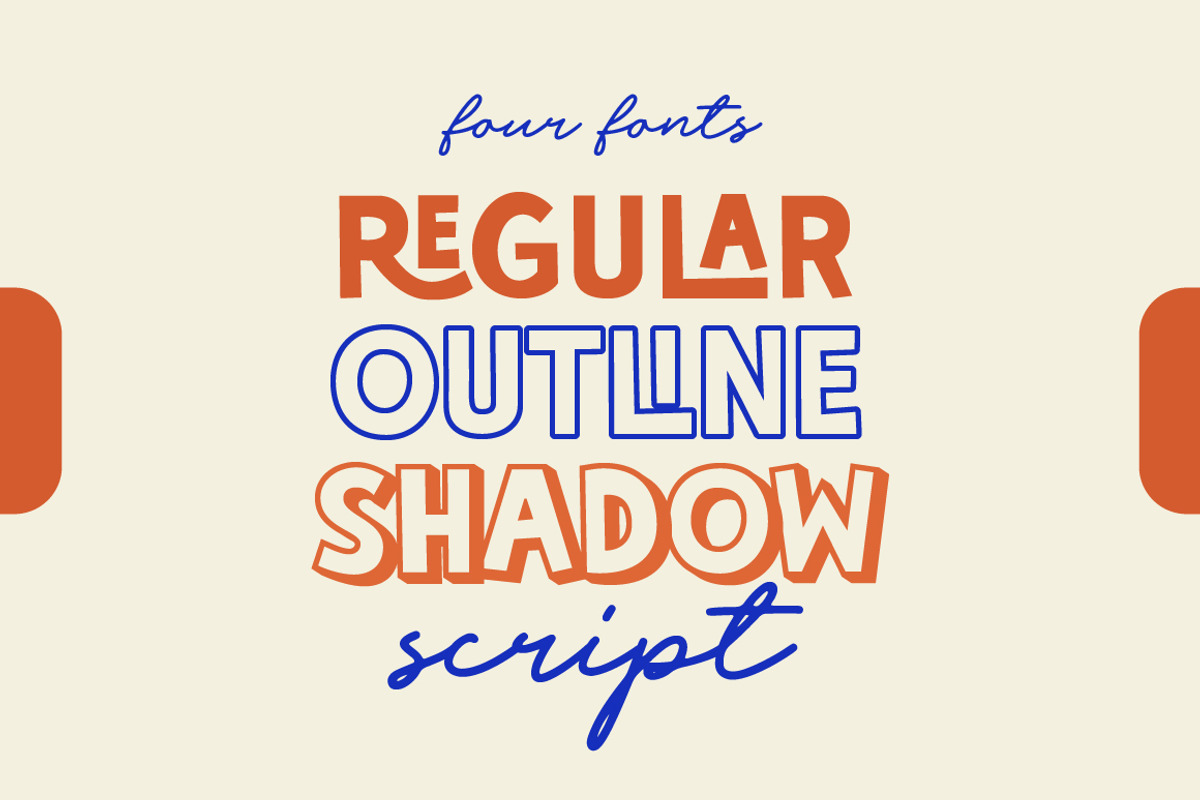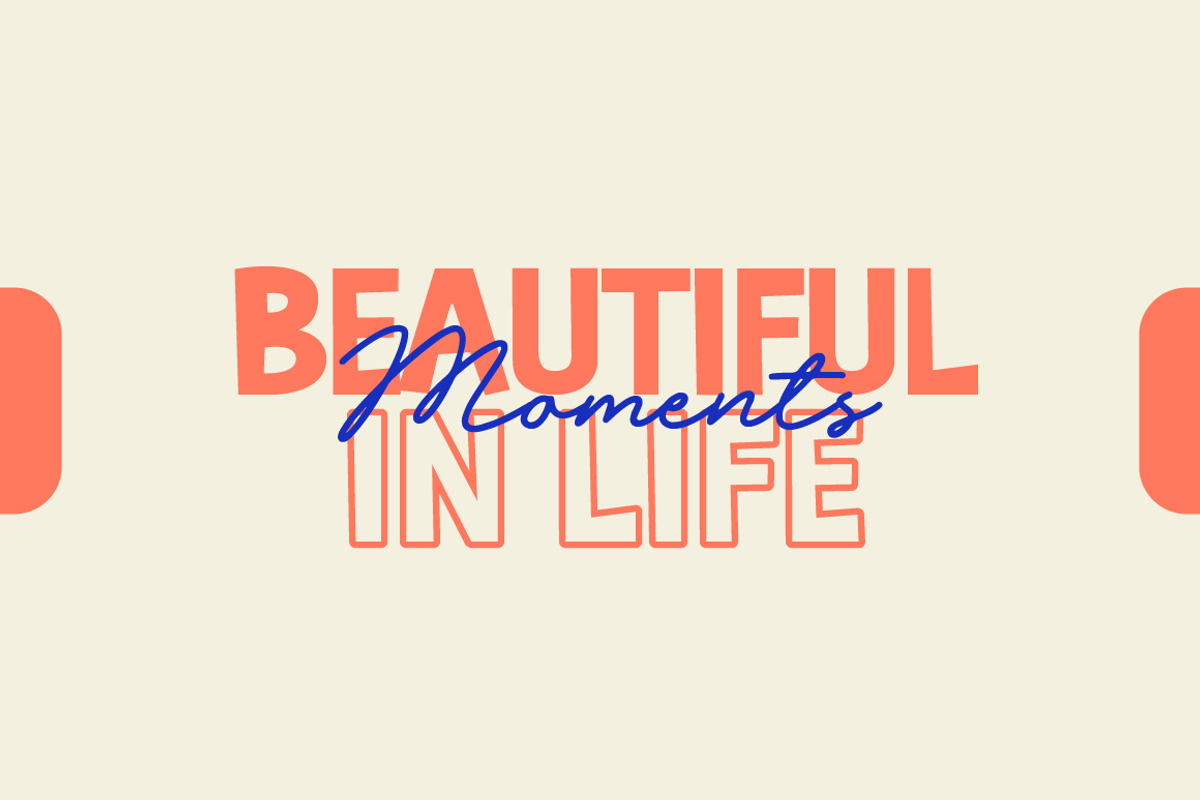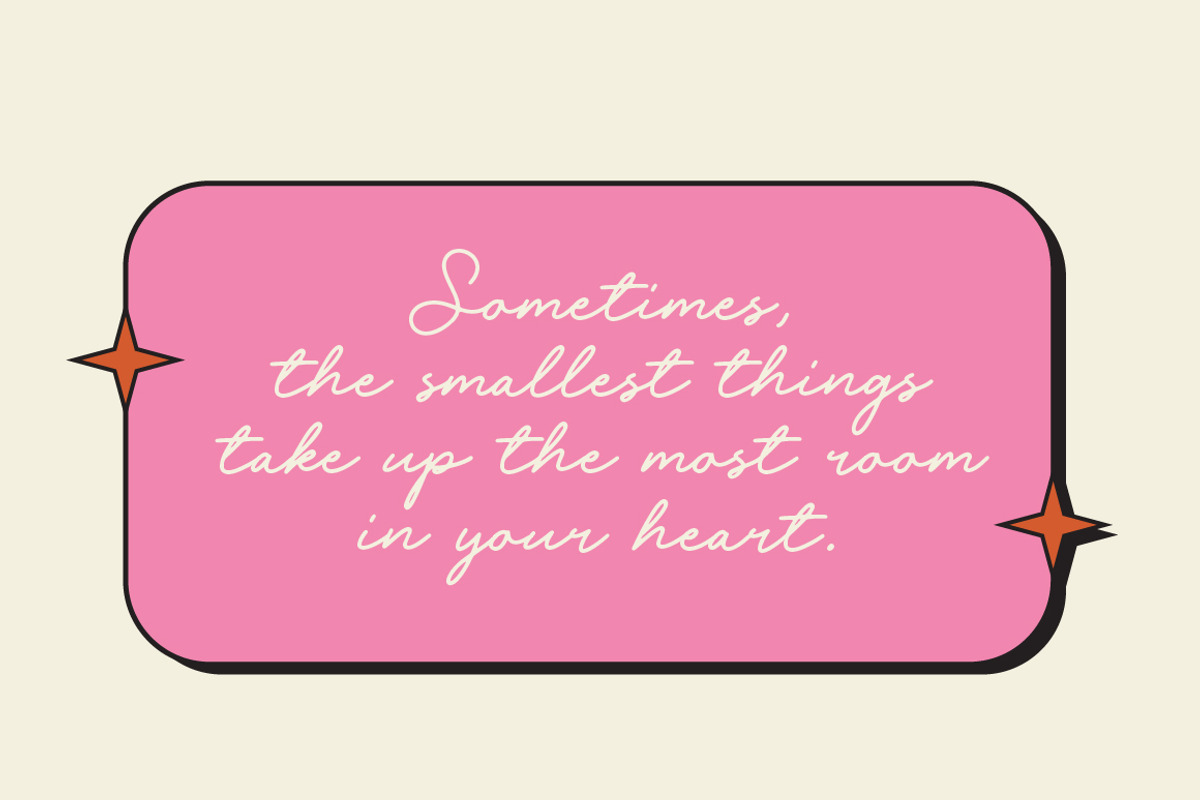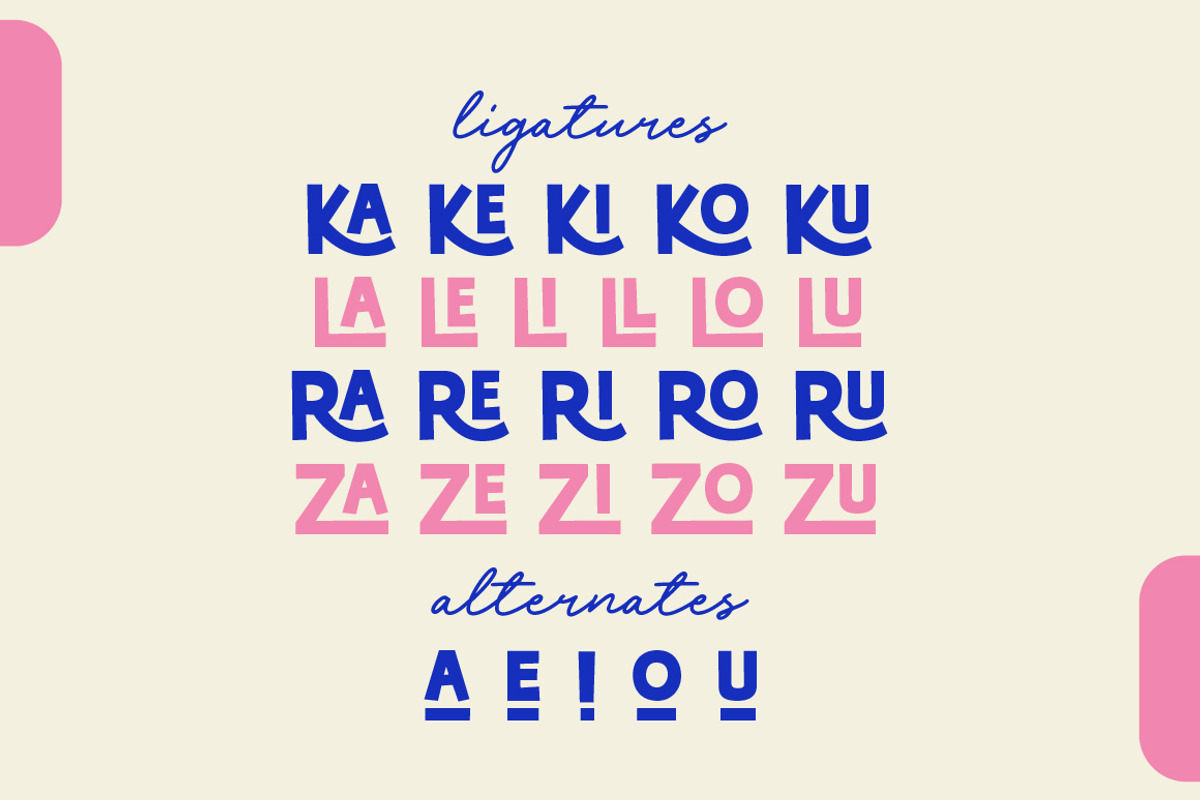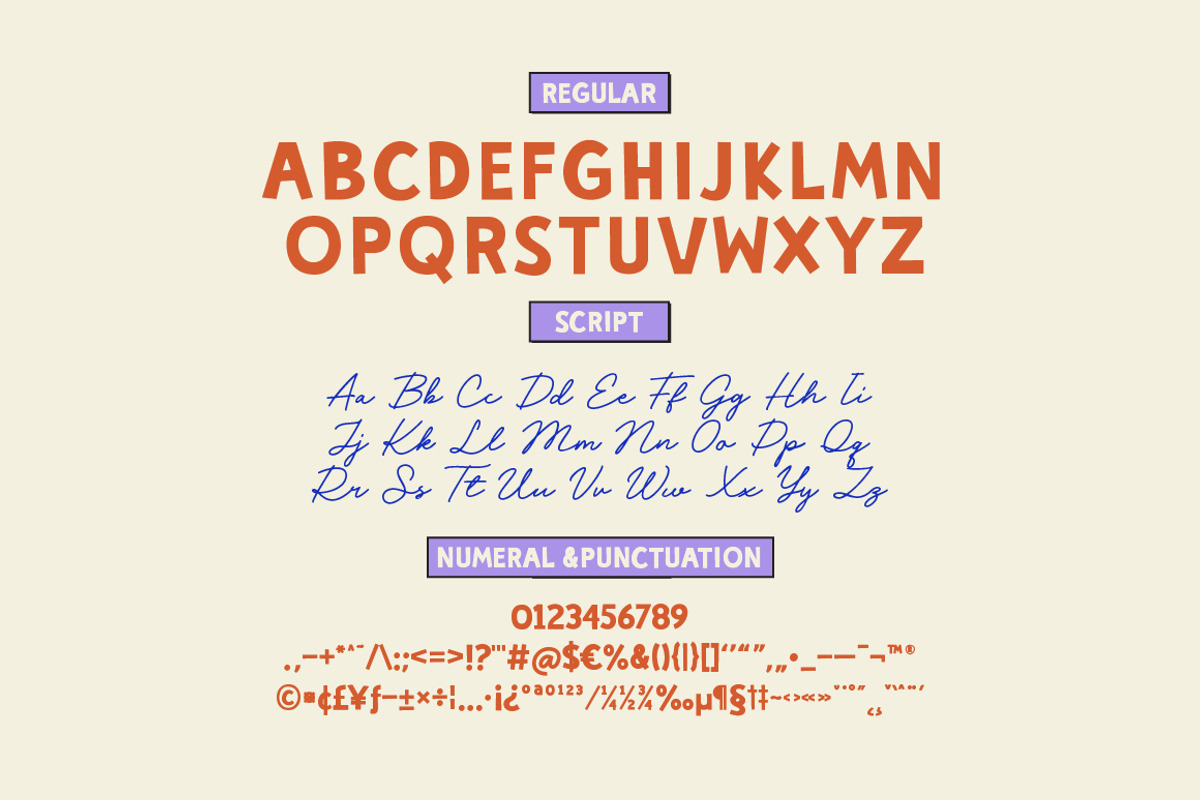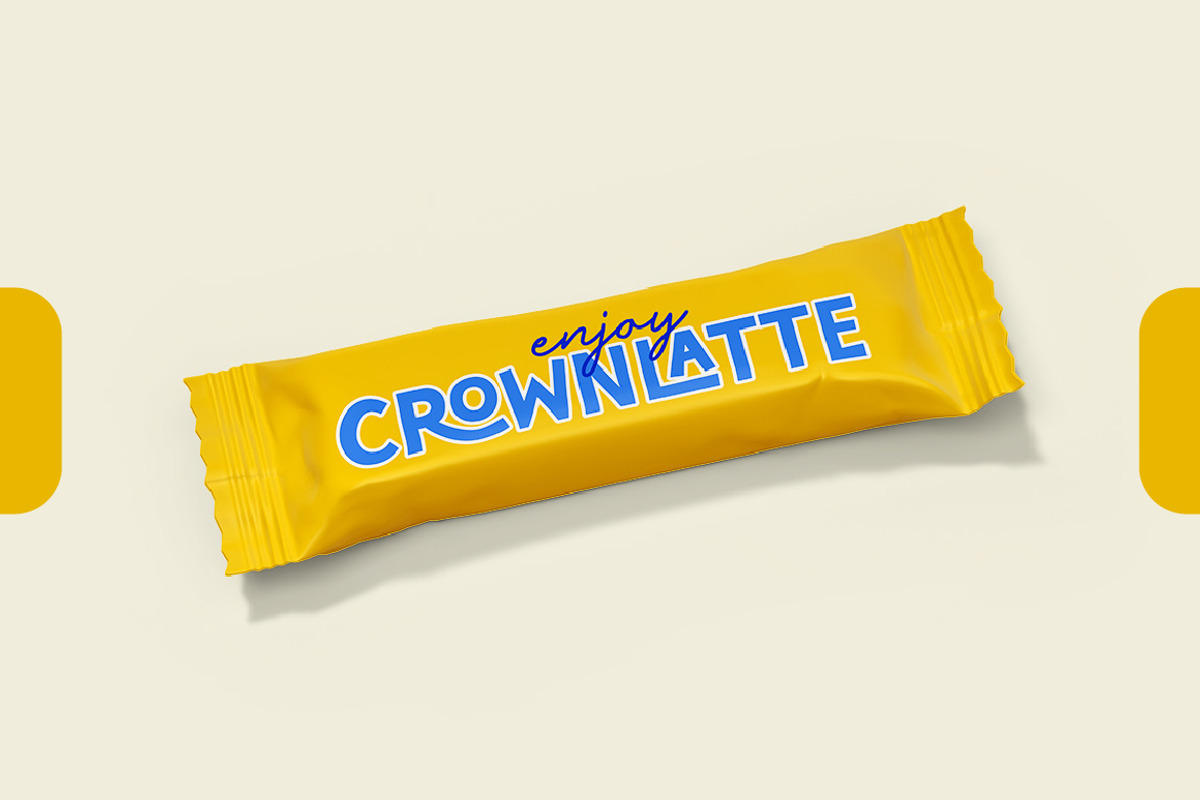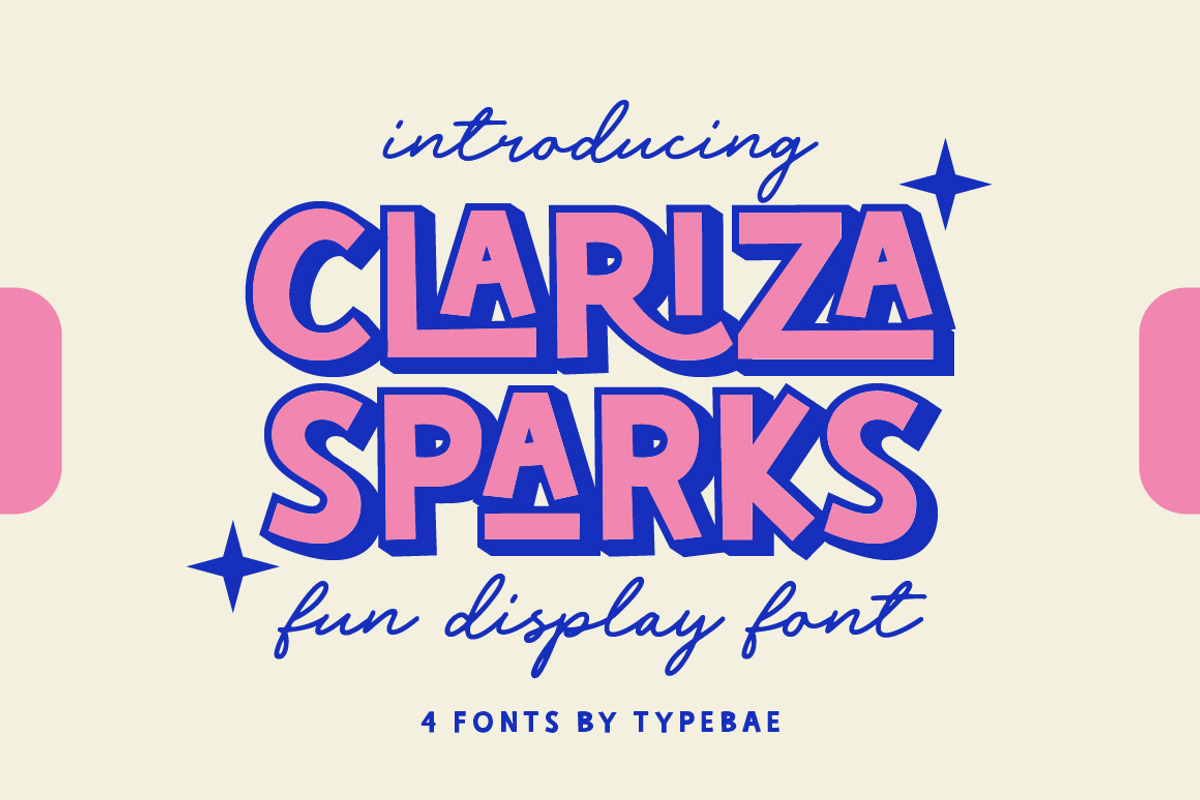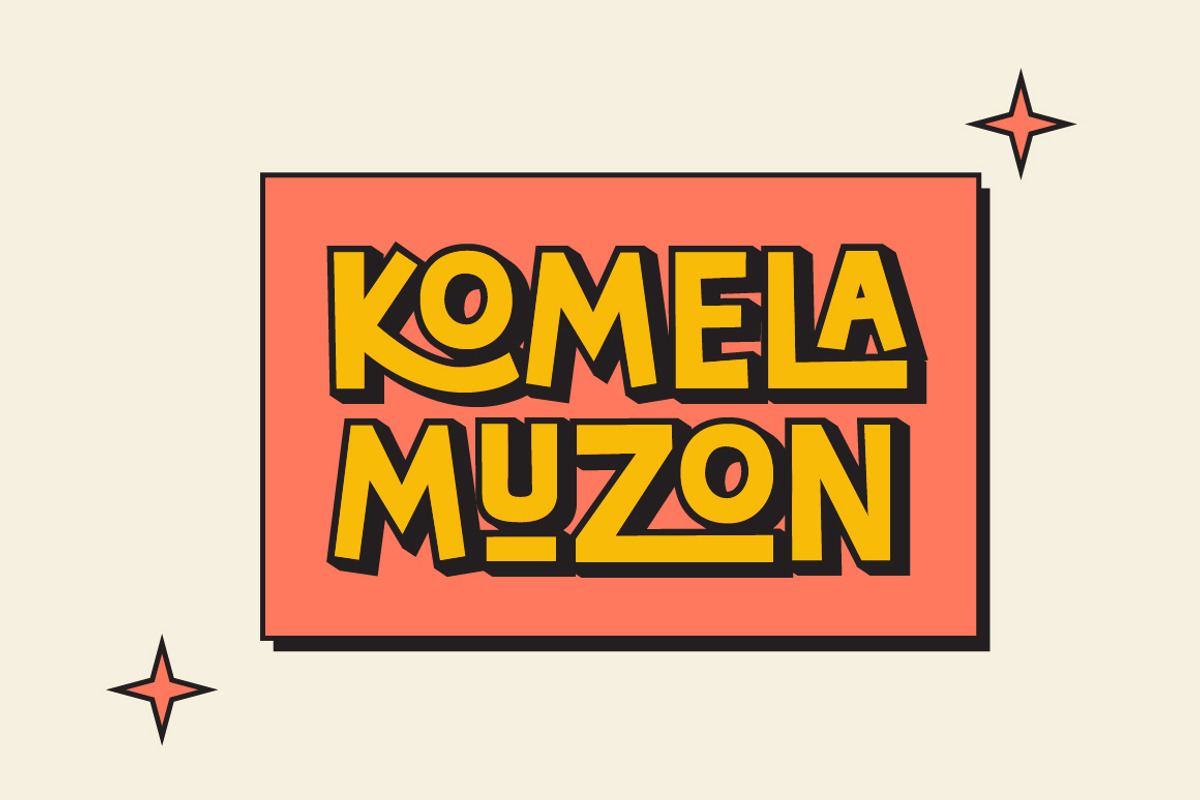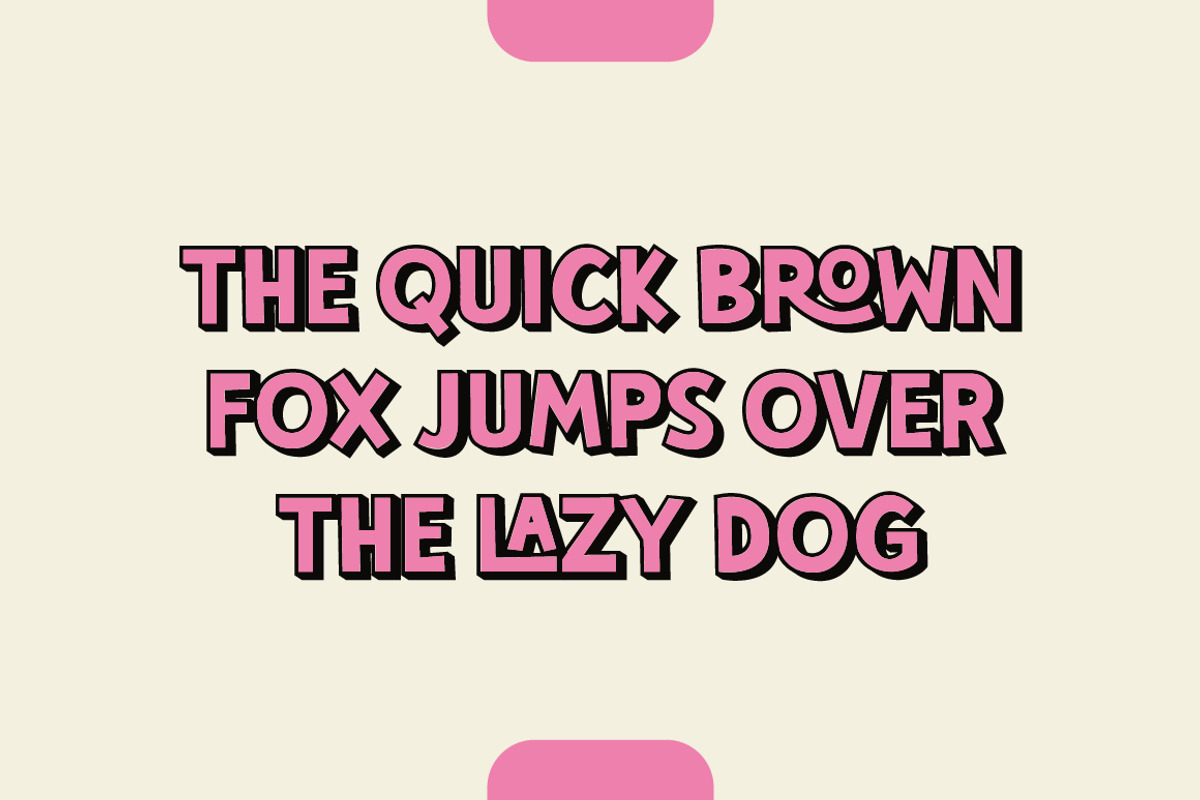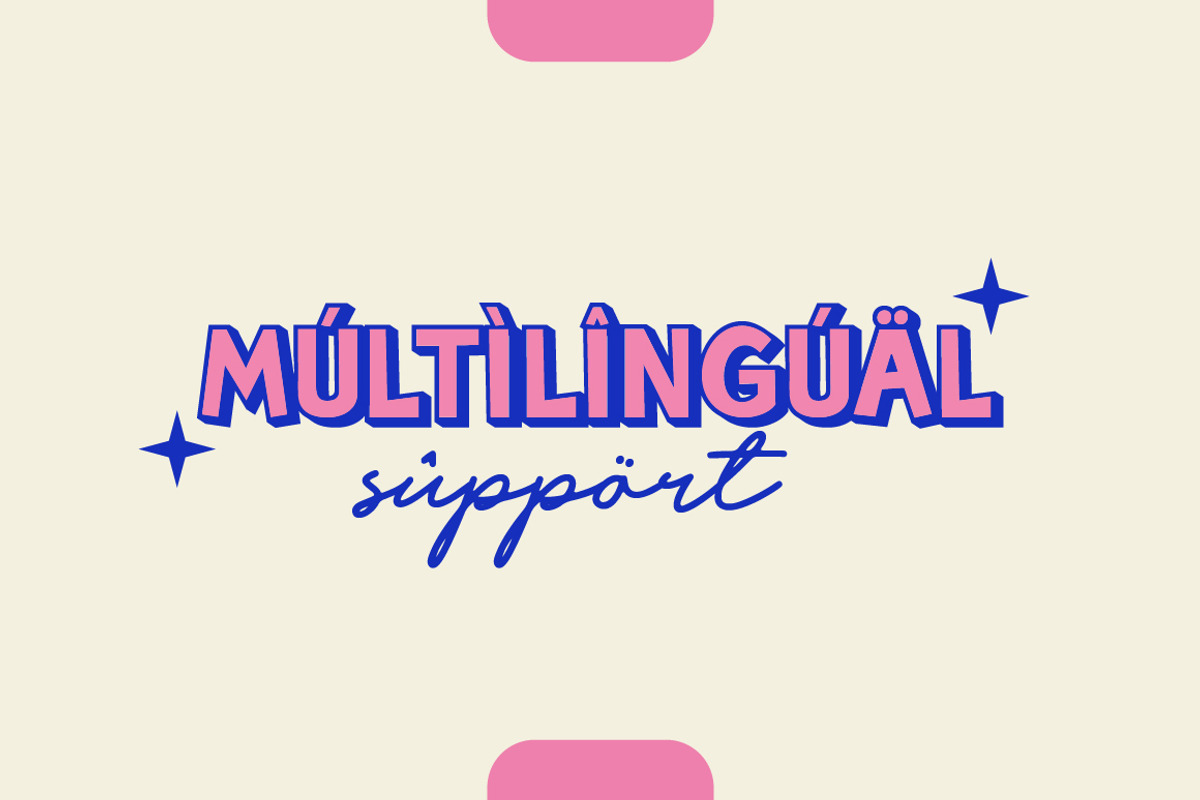
Clariza Sparks//Fun Display Font Duo
Clariza Sparks is a fun and energetic display font designed to bring vibrancy to your creative projects! This dynamic typeface comes in four unique styles, including a stylish script, bold outline, and shadow variations—perfect for layering and creating eye-catching effects. Whether you're working on branding, posters, social media graphics, packaging, or playful merchandise, Clariza Sparks adds a lively and whimsical touch to every design. Let your creativity shine with this bold and cheerful font!
Feature: Alphabet, Ligature, Alternates, Numeral, Punctuation, PUA Encode, Multilingual